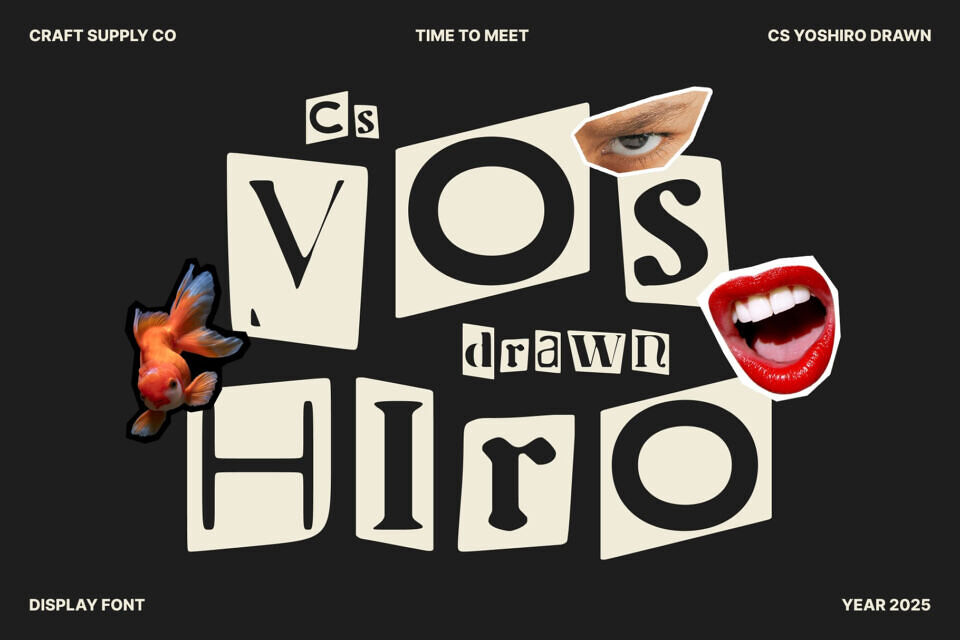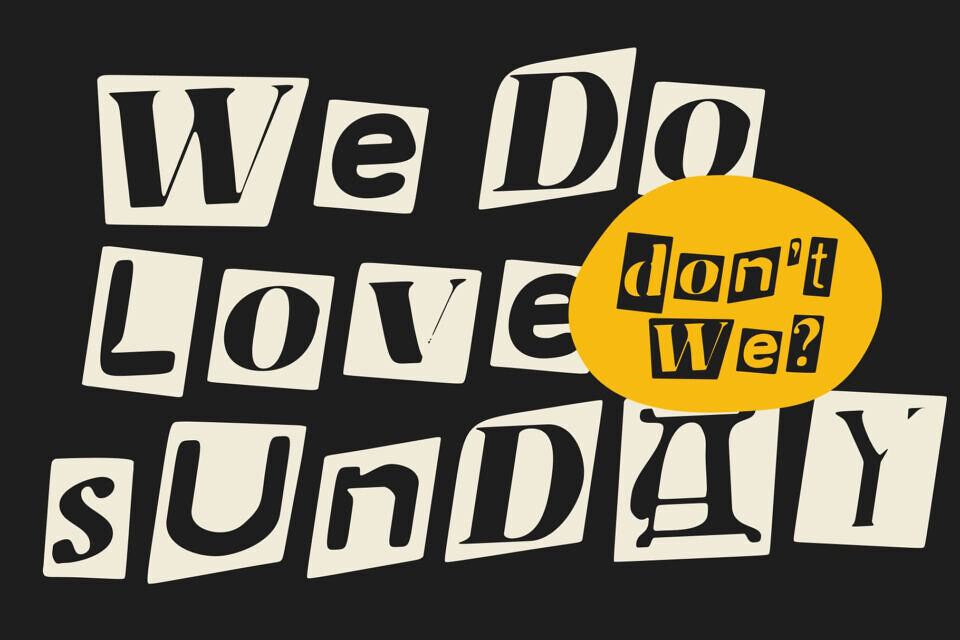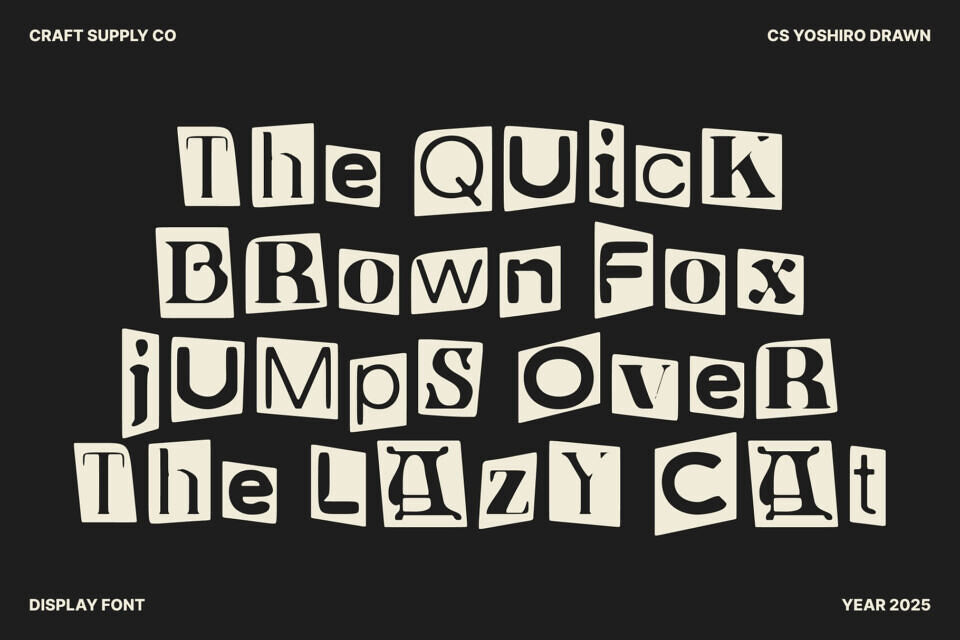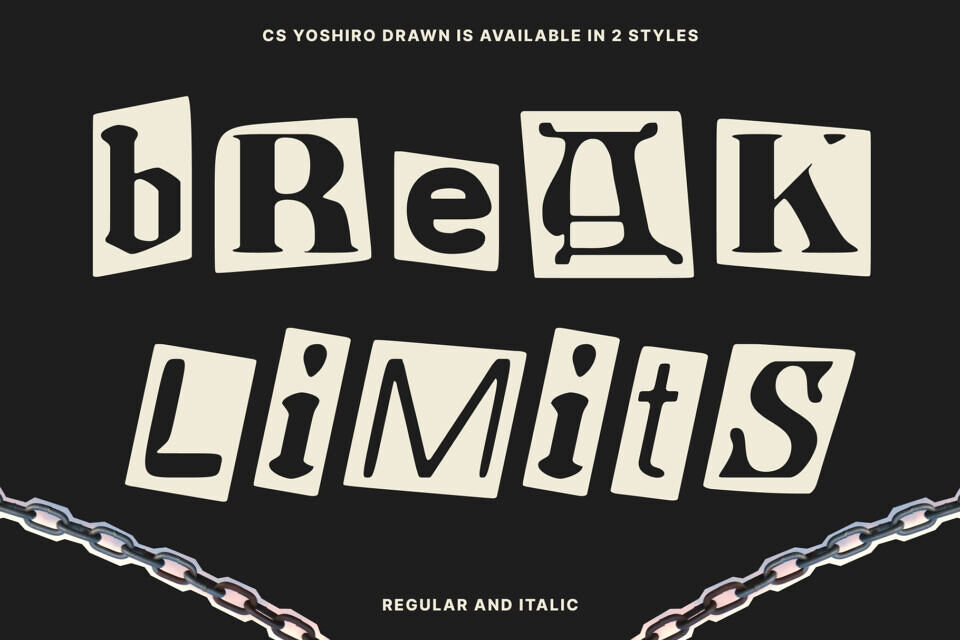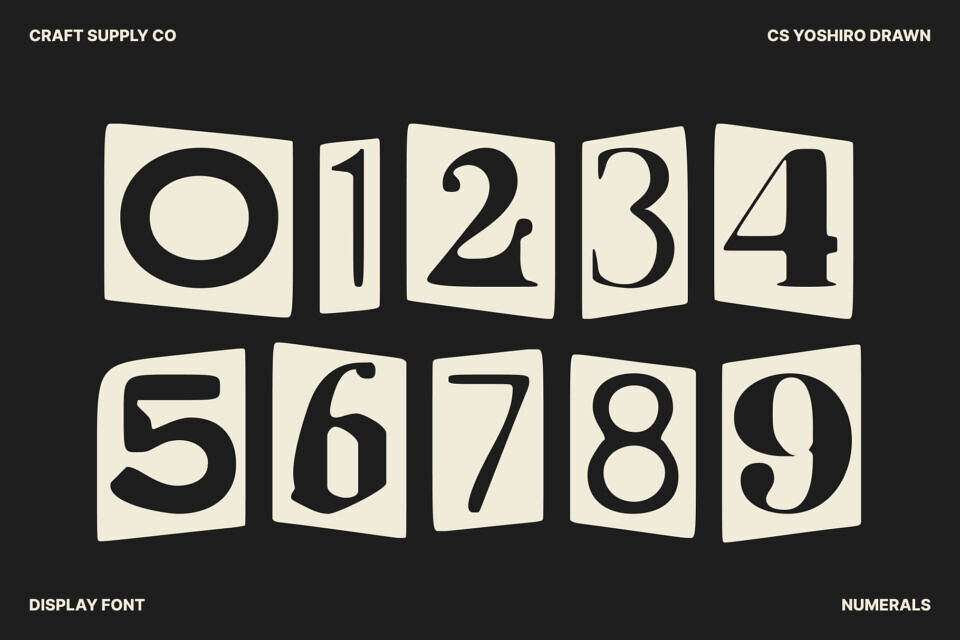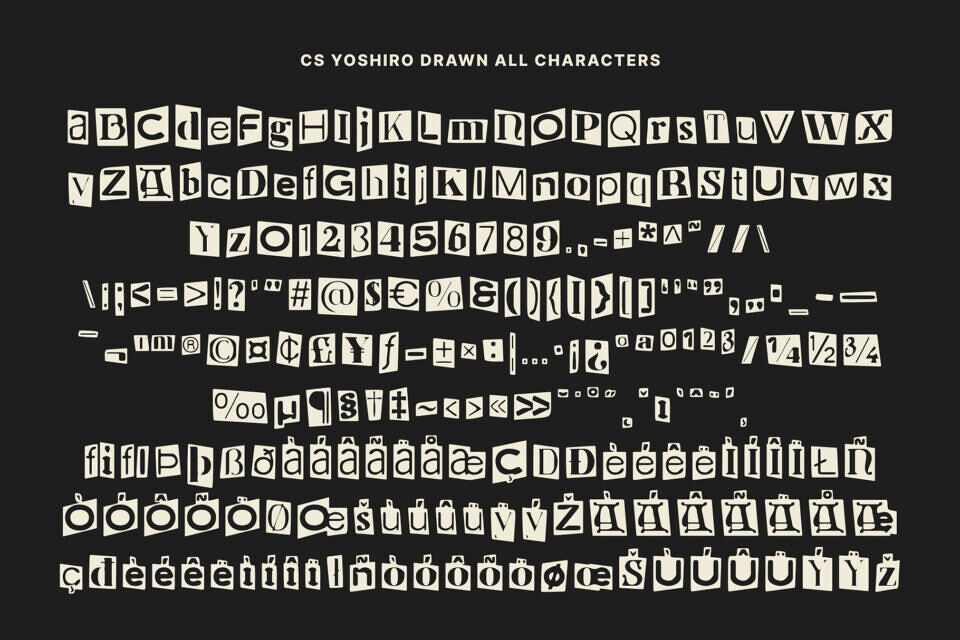
Unleash disorder and bold visual impact with this ransom-style collage display font. Crafted from cut-and-paste shapes and intentionally irregular forms, its chaotic energy creates an unapologetic, loud presence.
The hand-drawn effect adds messy, organic contours, mimicking DIY street graphics and ransom notes for a gritty, unique look. Perfect for edgy posters, album covers, and disruptive branding, this distinctive typeface redefines design with fearless originality.